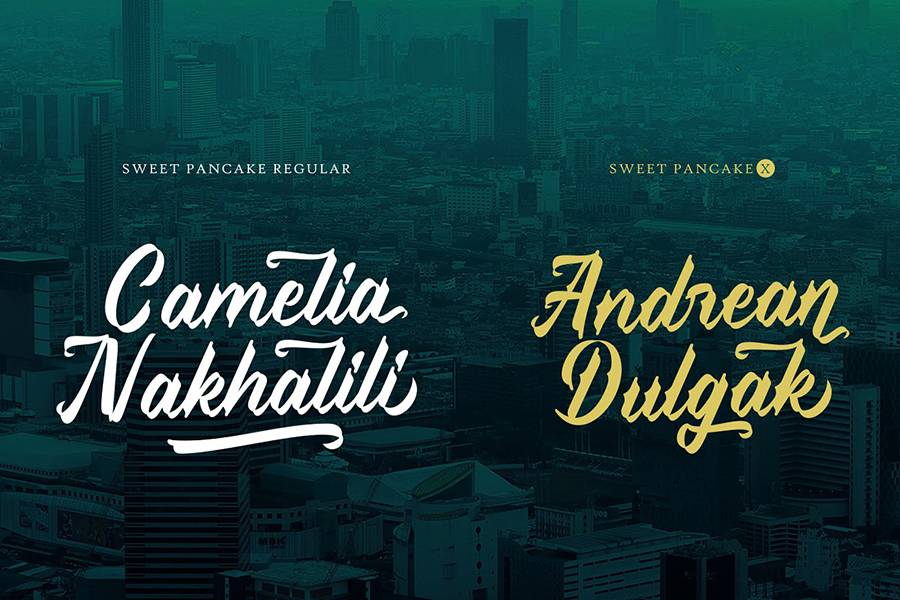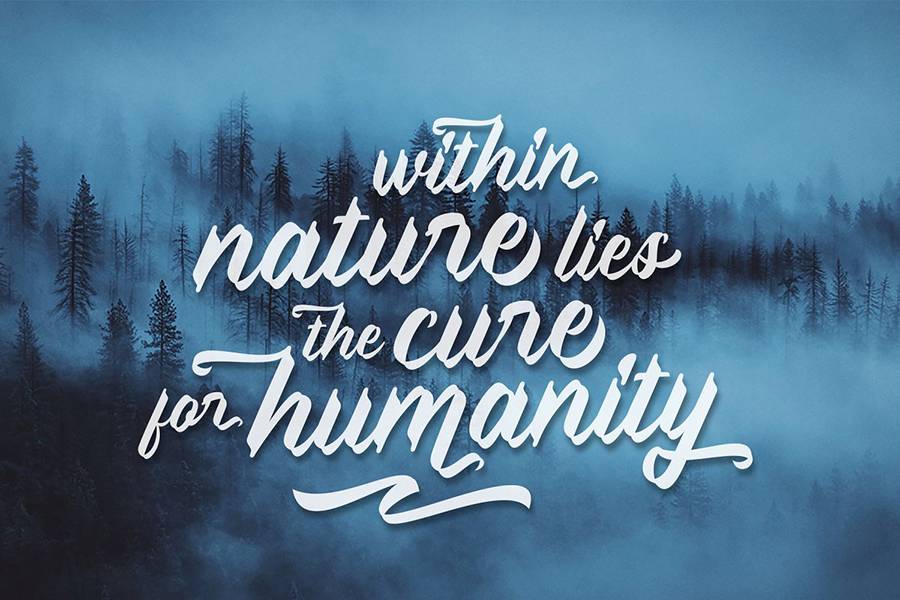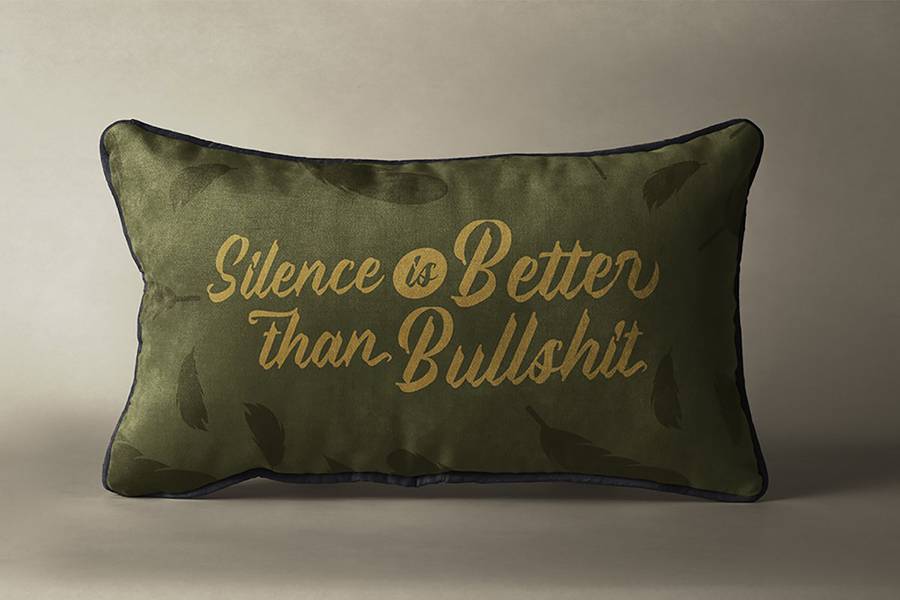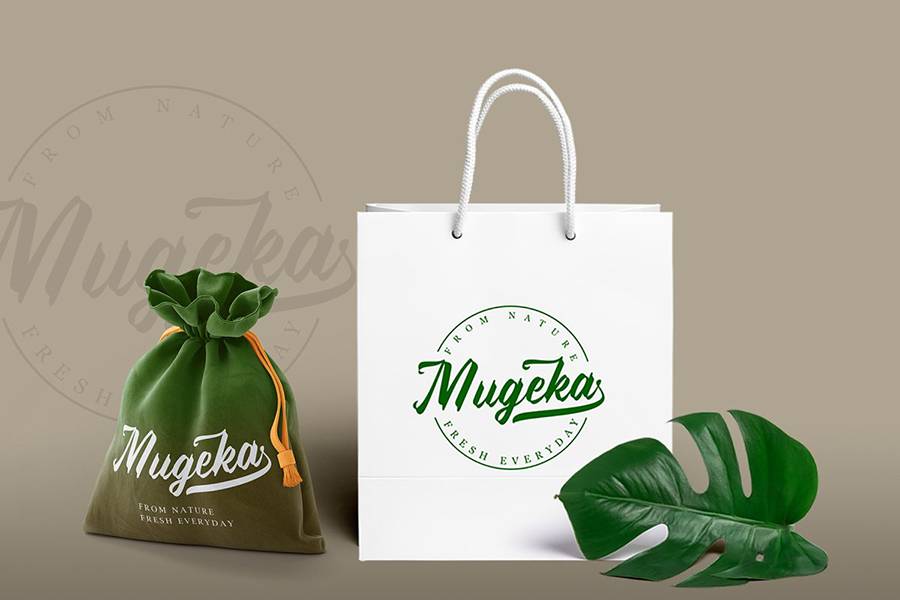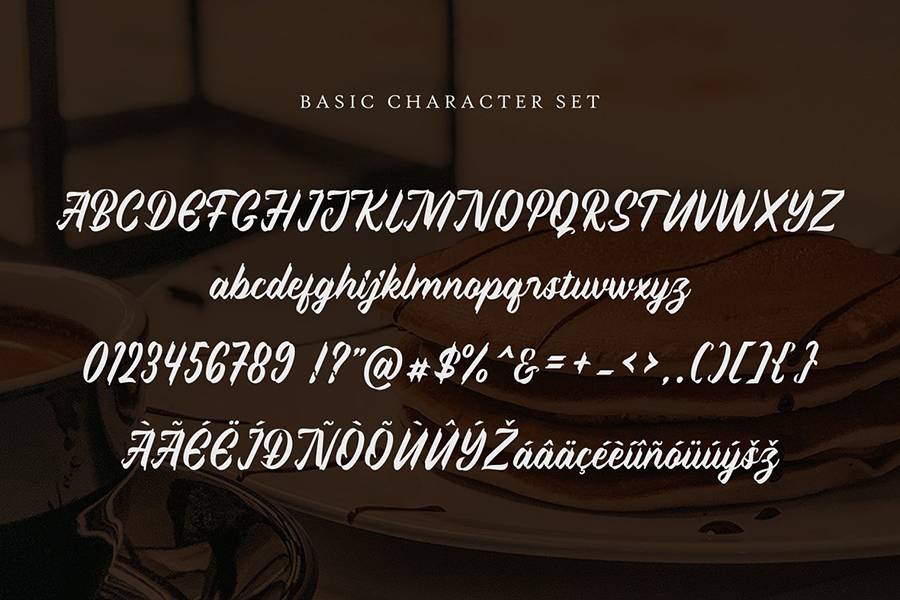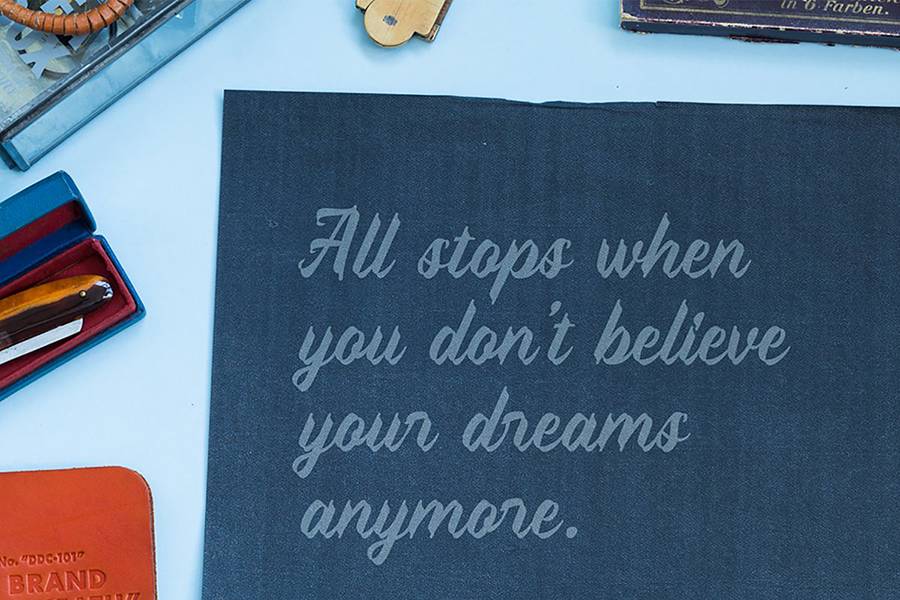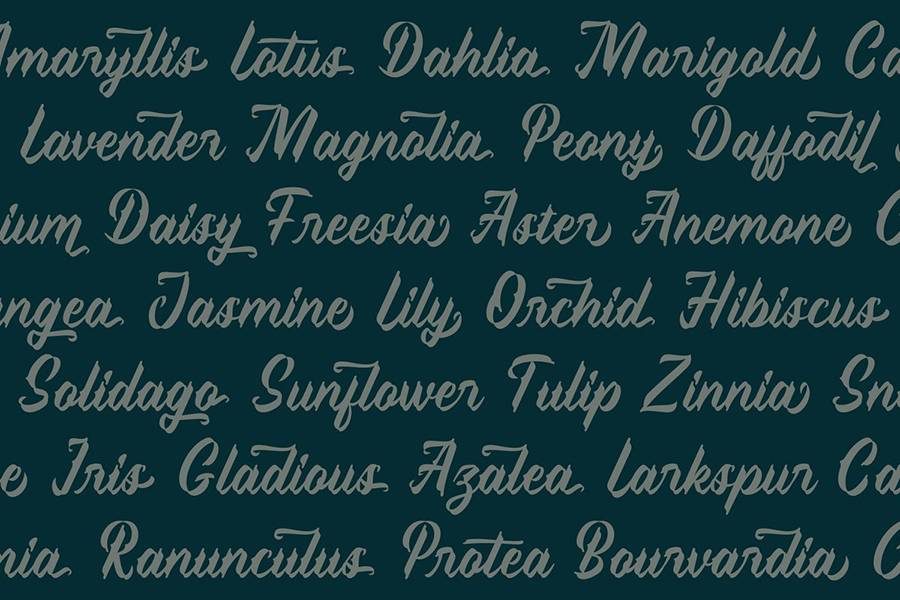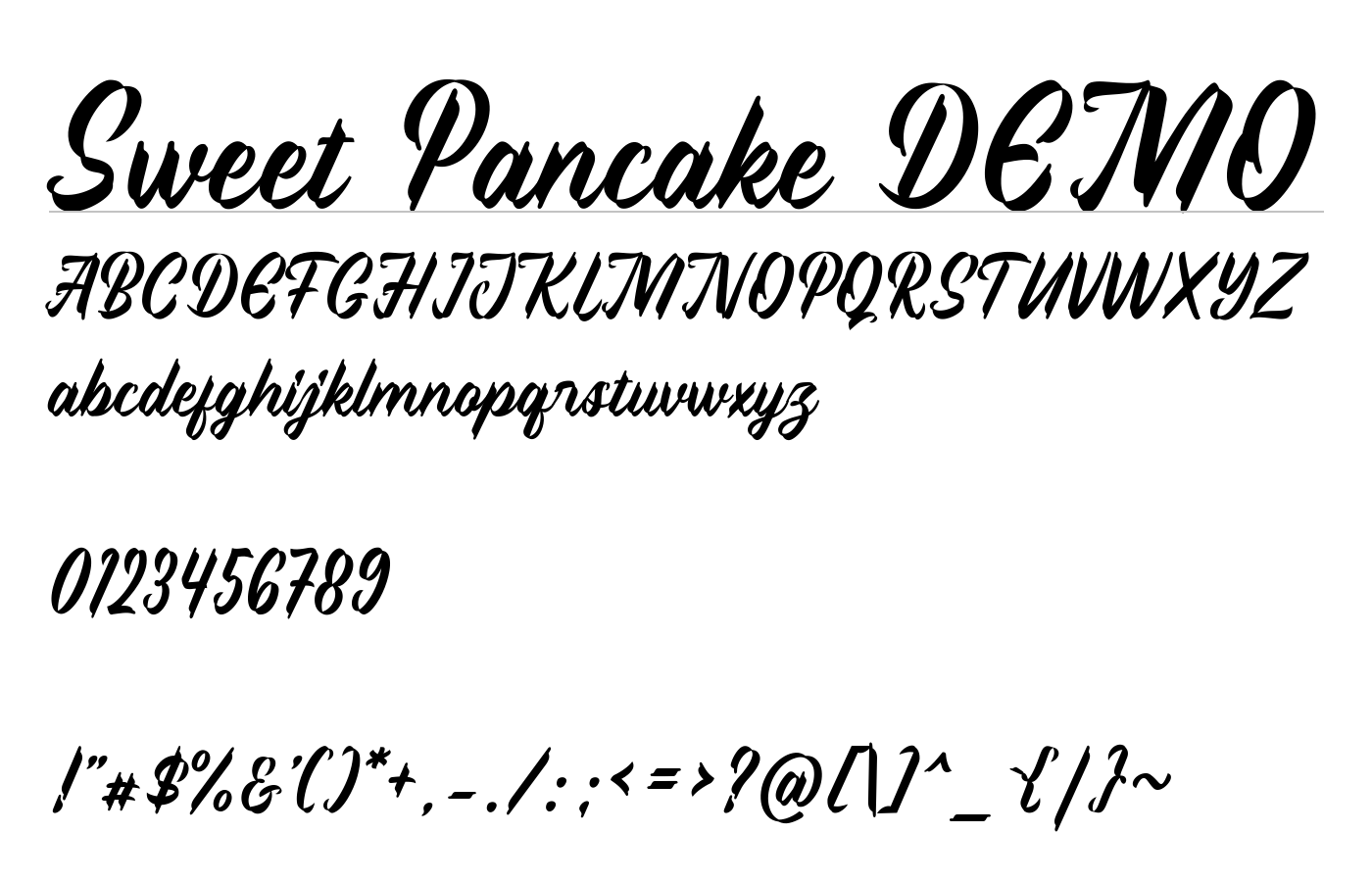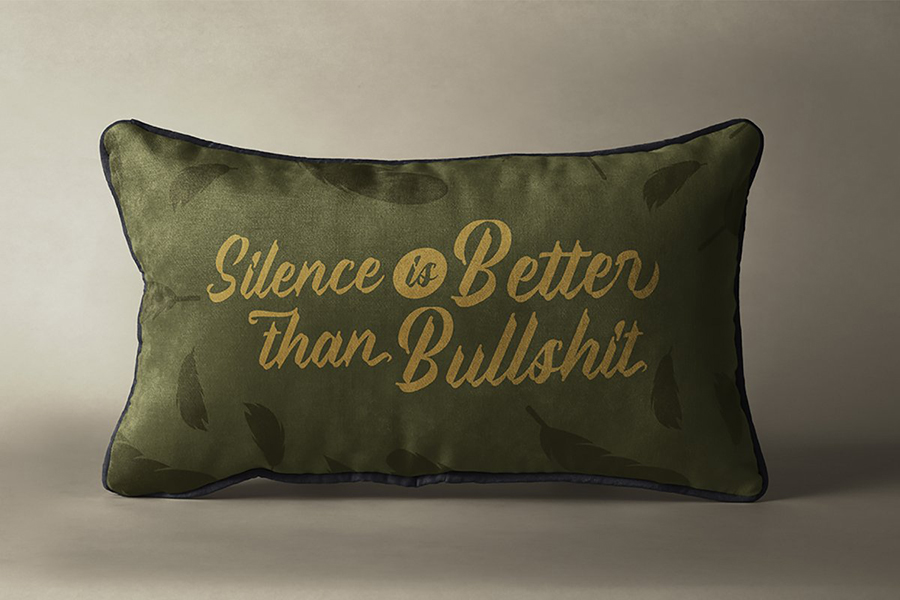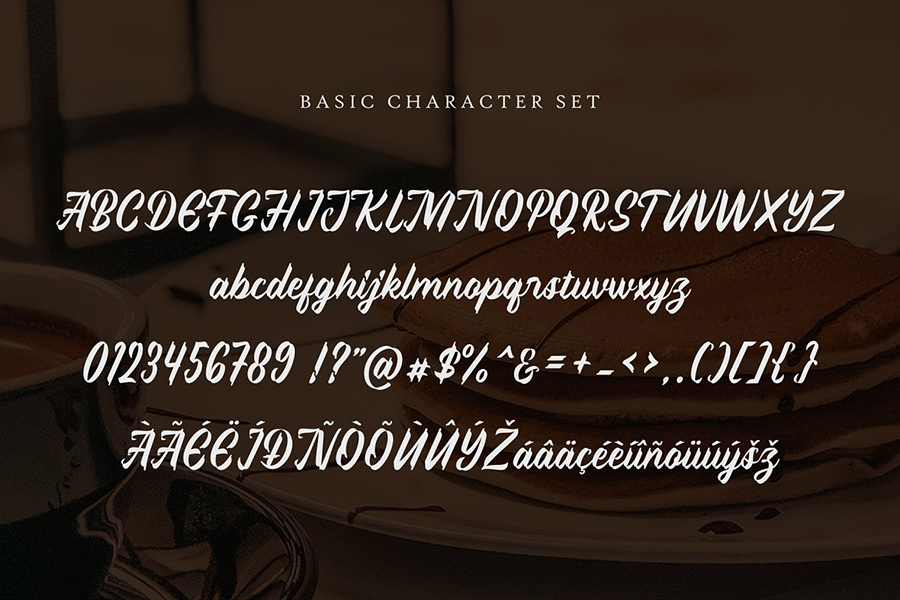
Sweet Pancake Script Demo is a bold and elegant script font with smooth, flowing strokes that create a lively, handwritten feel. Its slightly condensed letterforms and high contrast between thick and thin lines make it perfect for eye-catching headlines, logos, and branding that seek a stylish yet approachable personality. This font works well for creative projects needing a touch of sophistication combined with friendly charm.
Sweet Pancake Script Demo
About Sweet Pancake Script Demo
| Font family | Sweet Pancake Script Demo |
| Release date | 2018-10-31 |
| Designer | Locomotype |